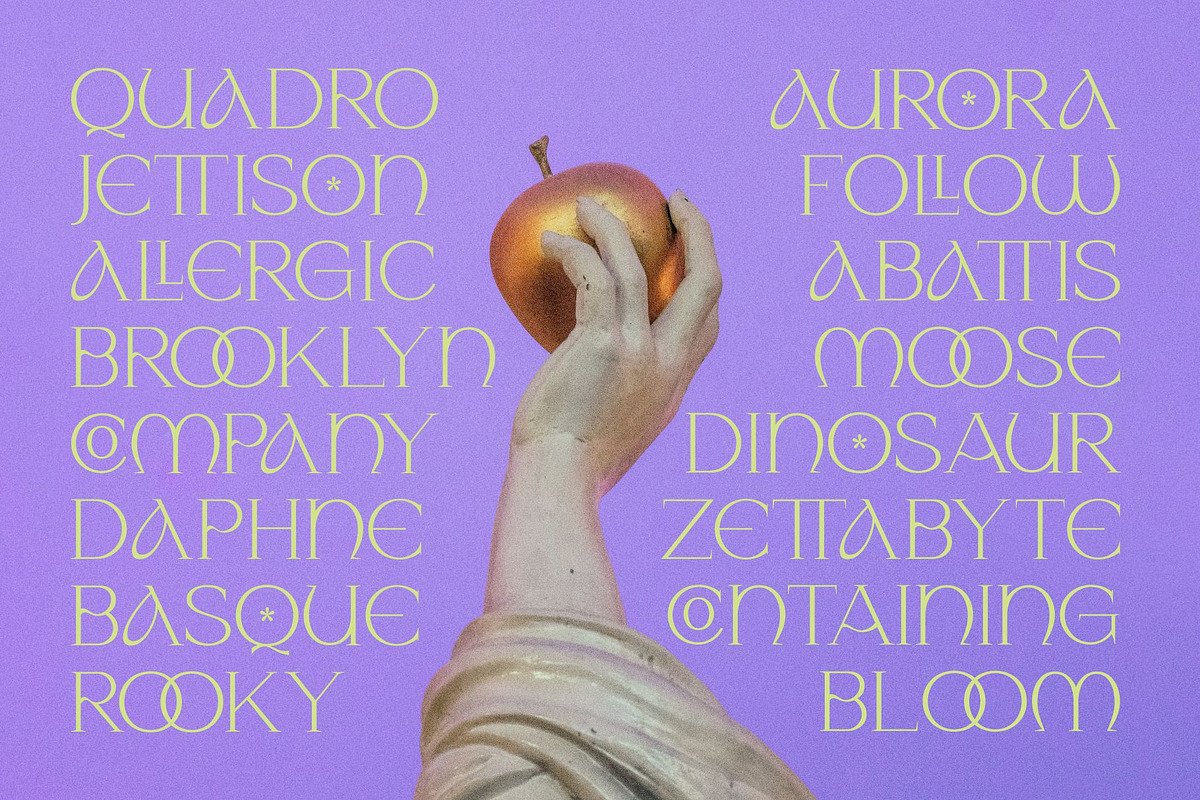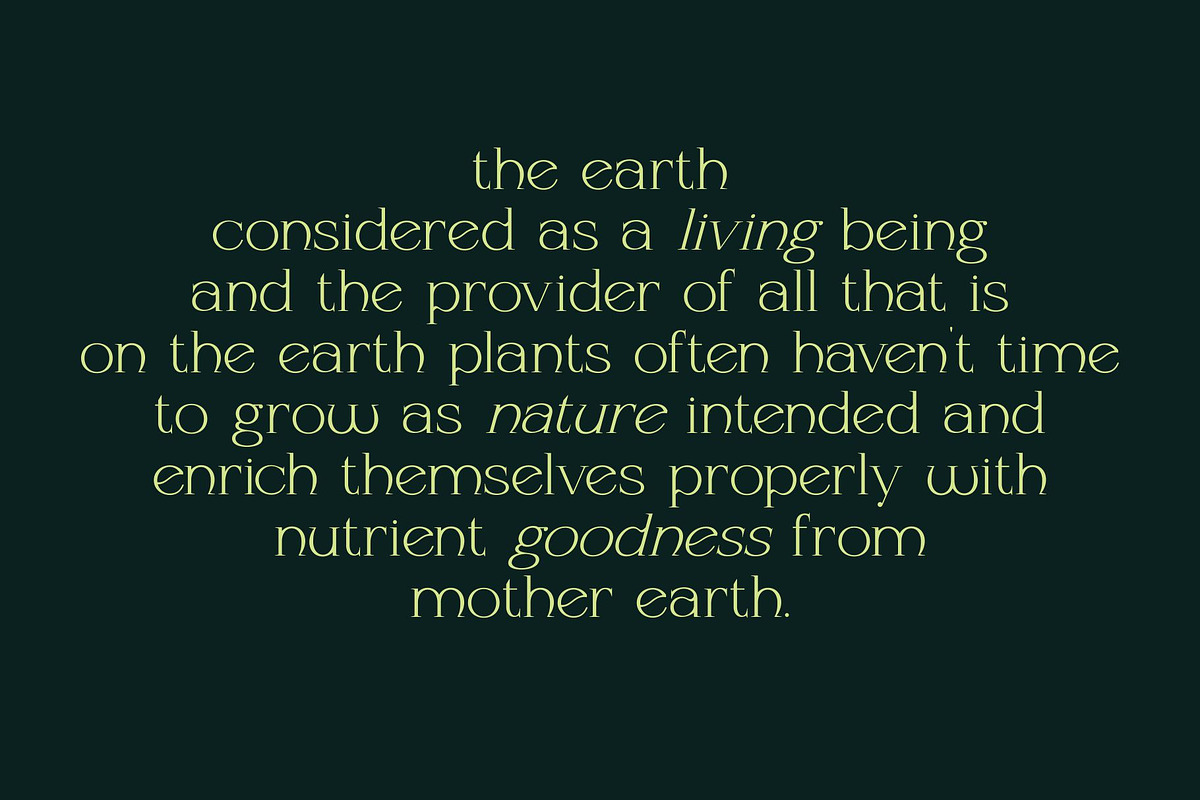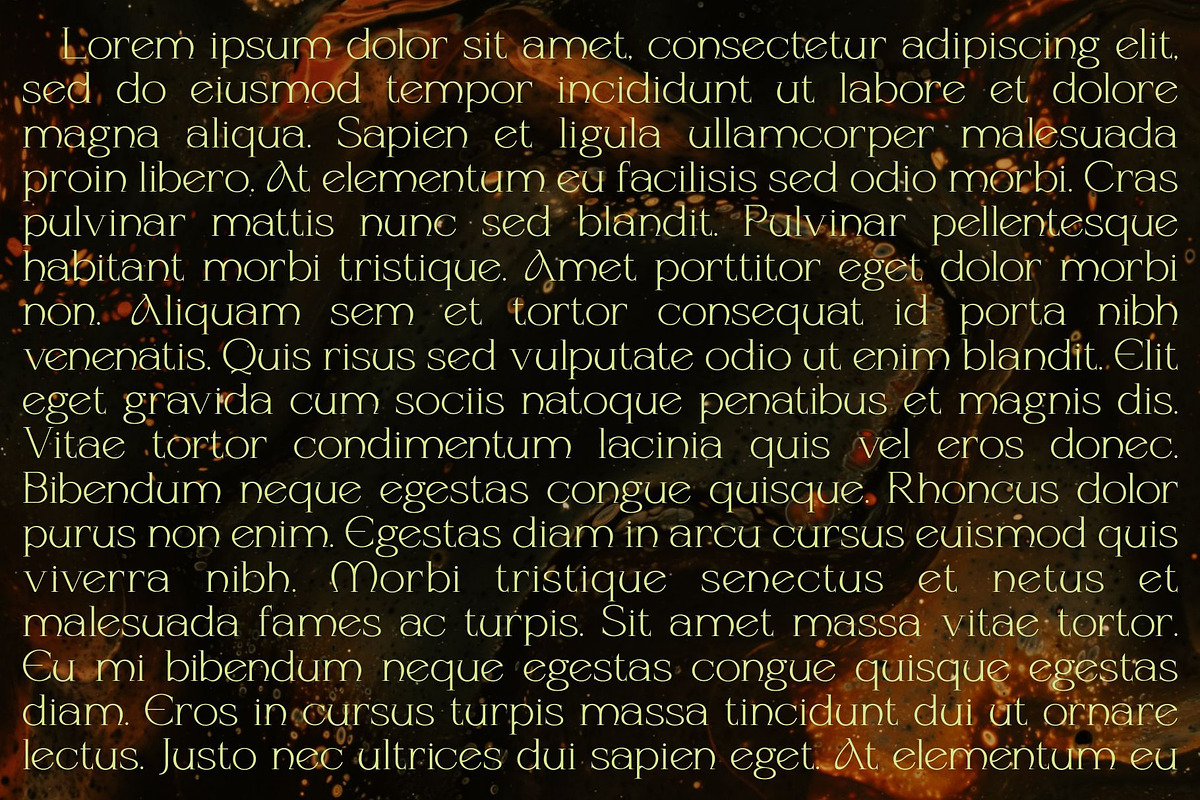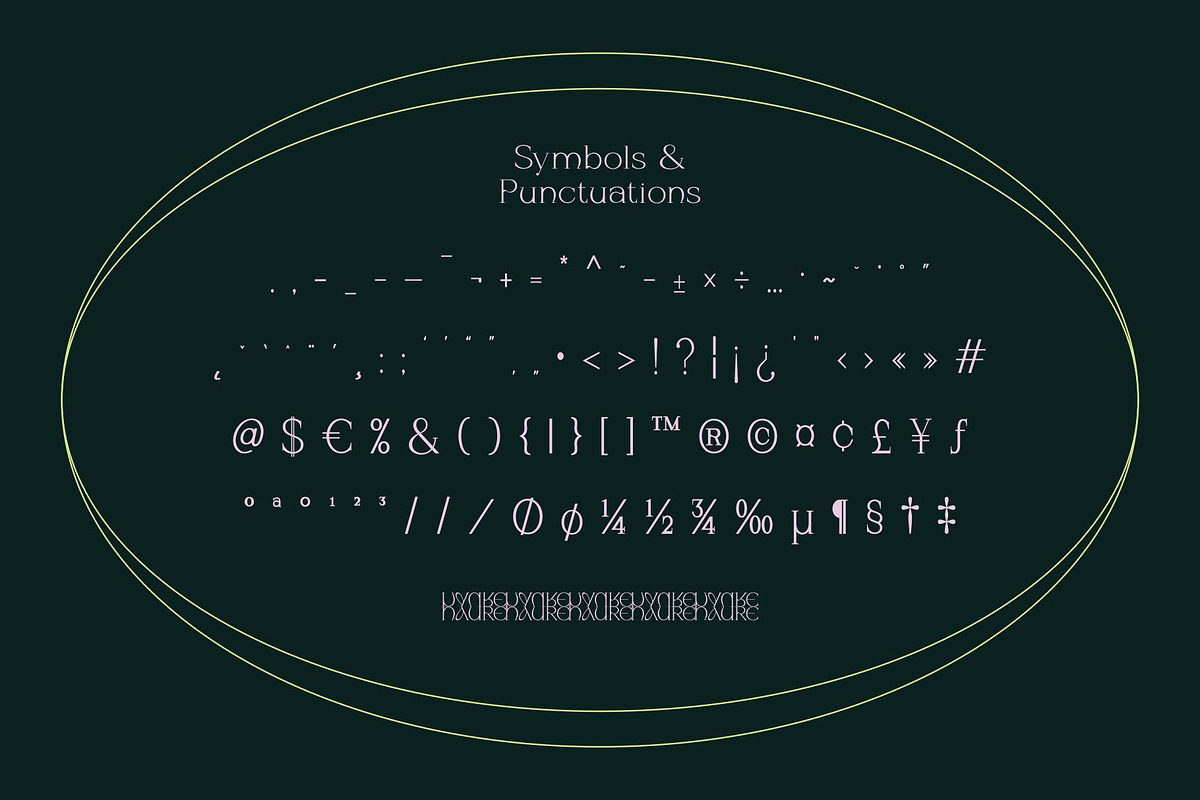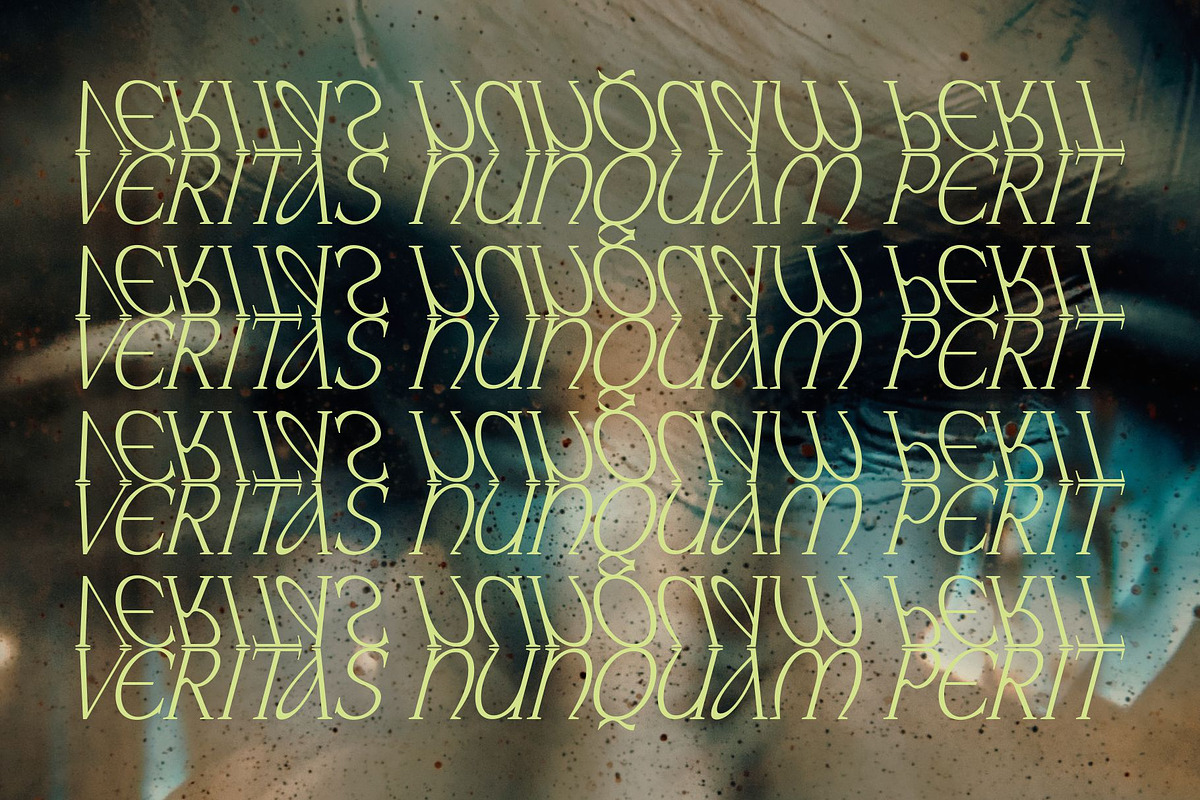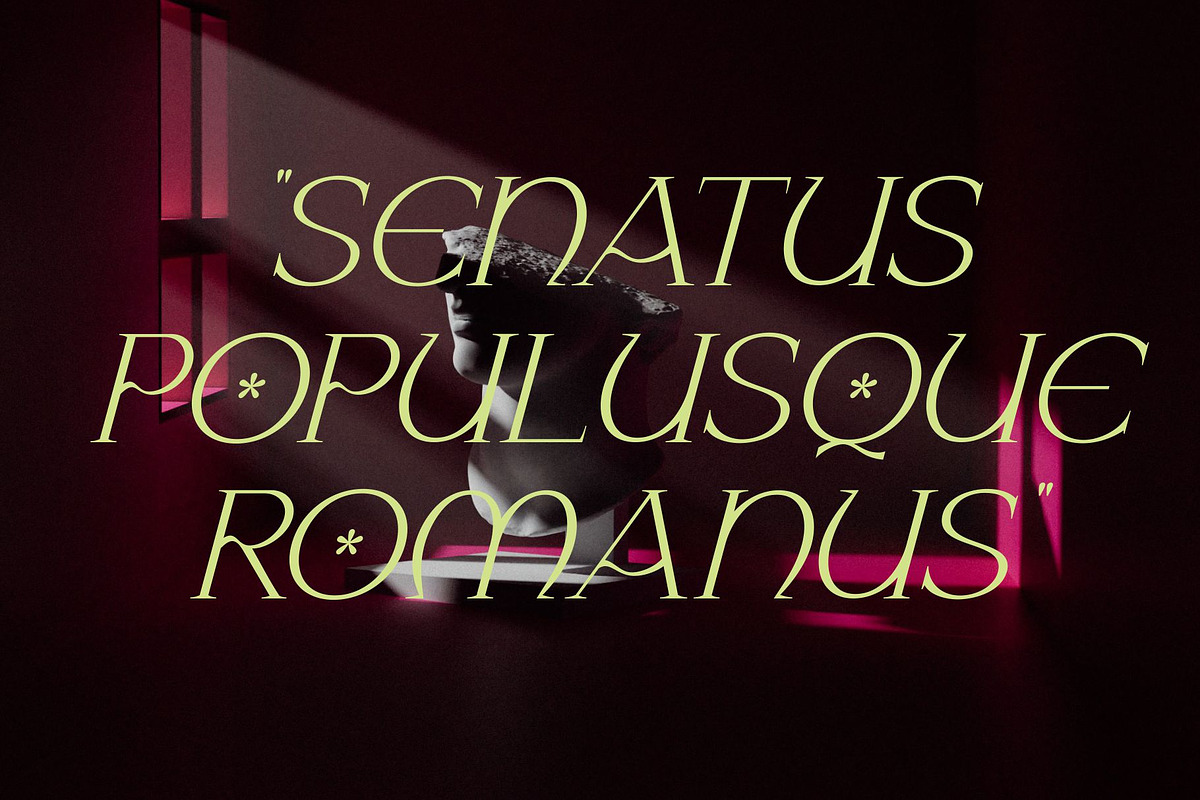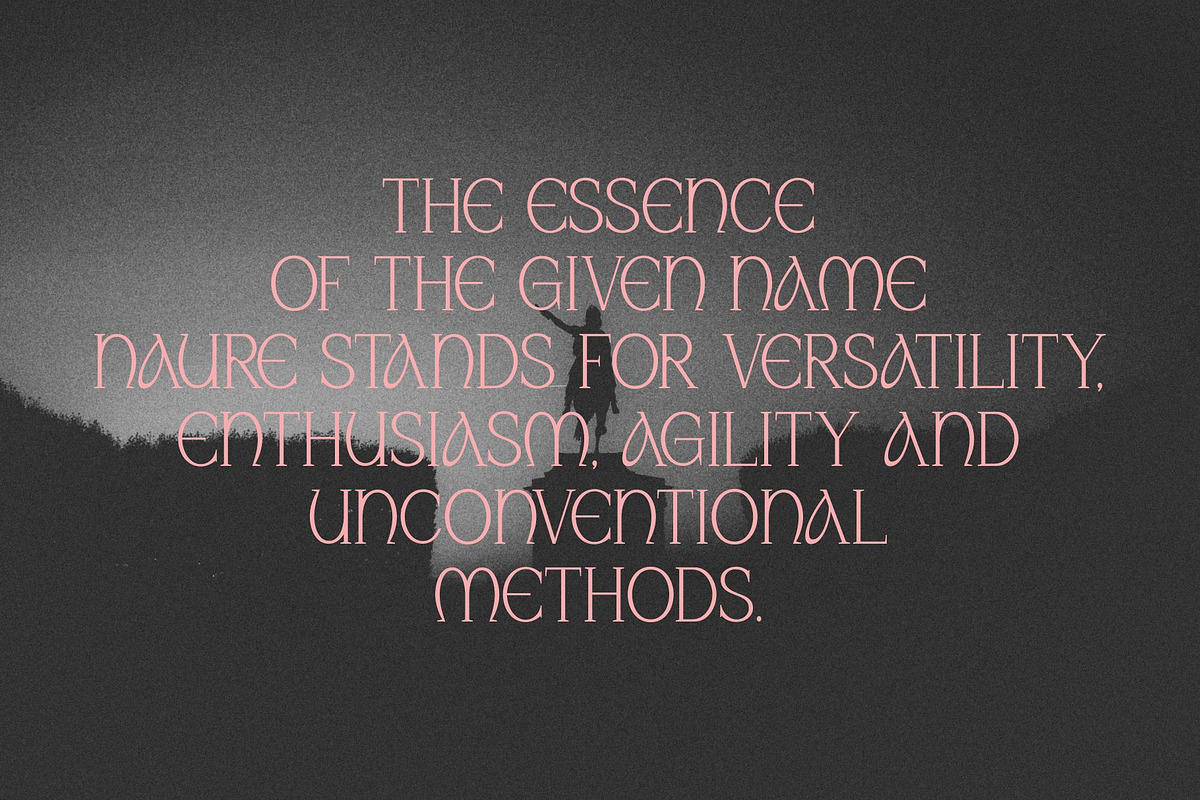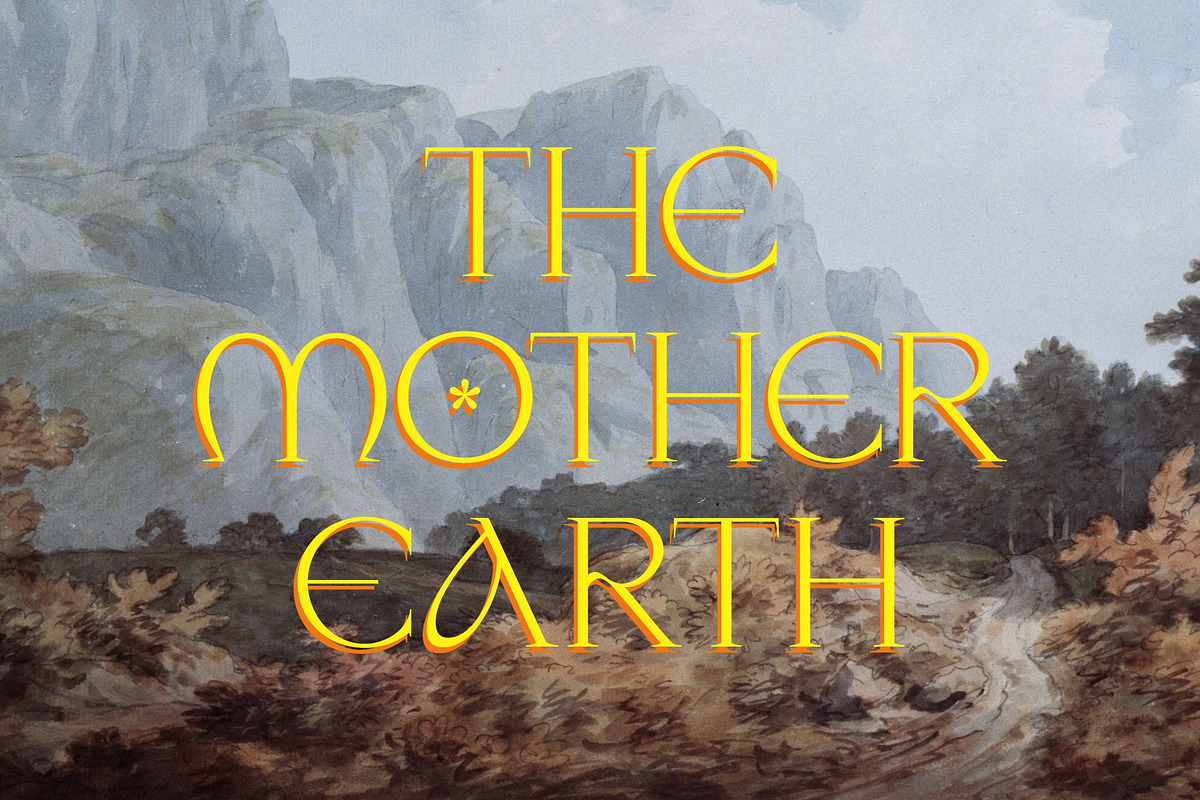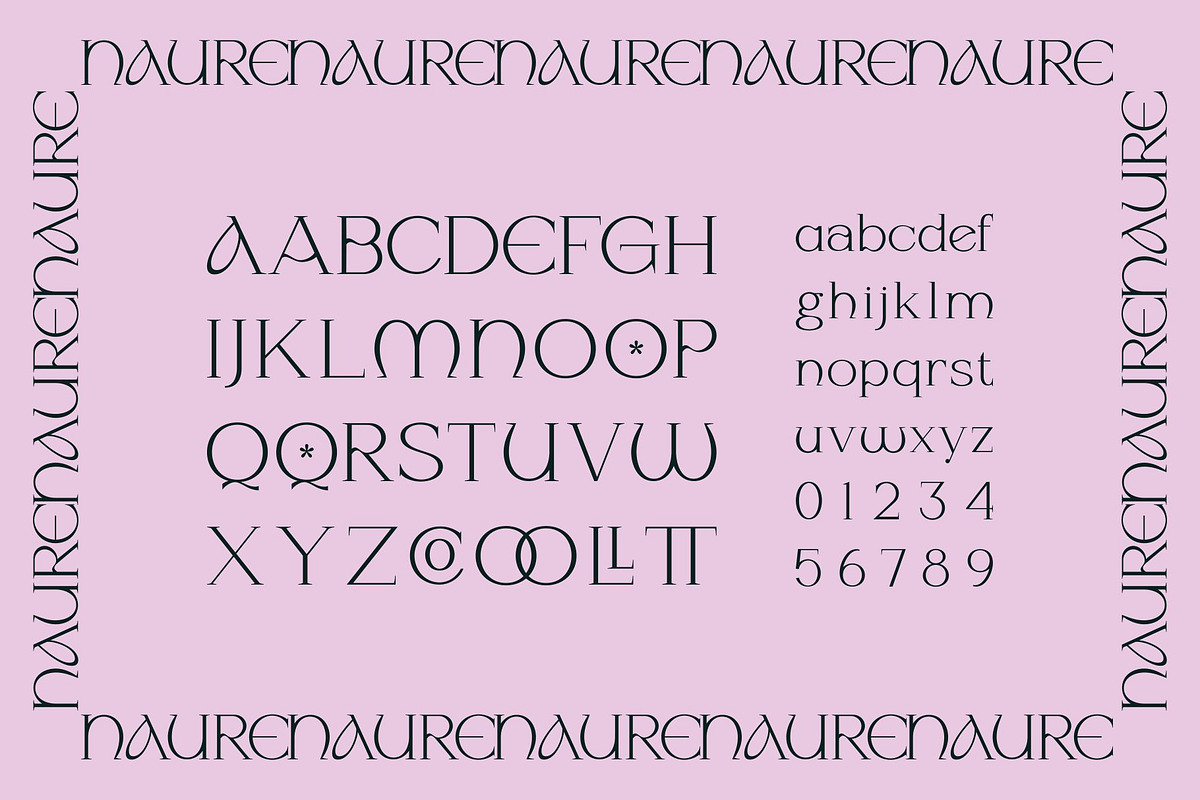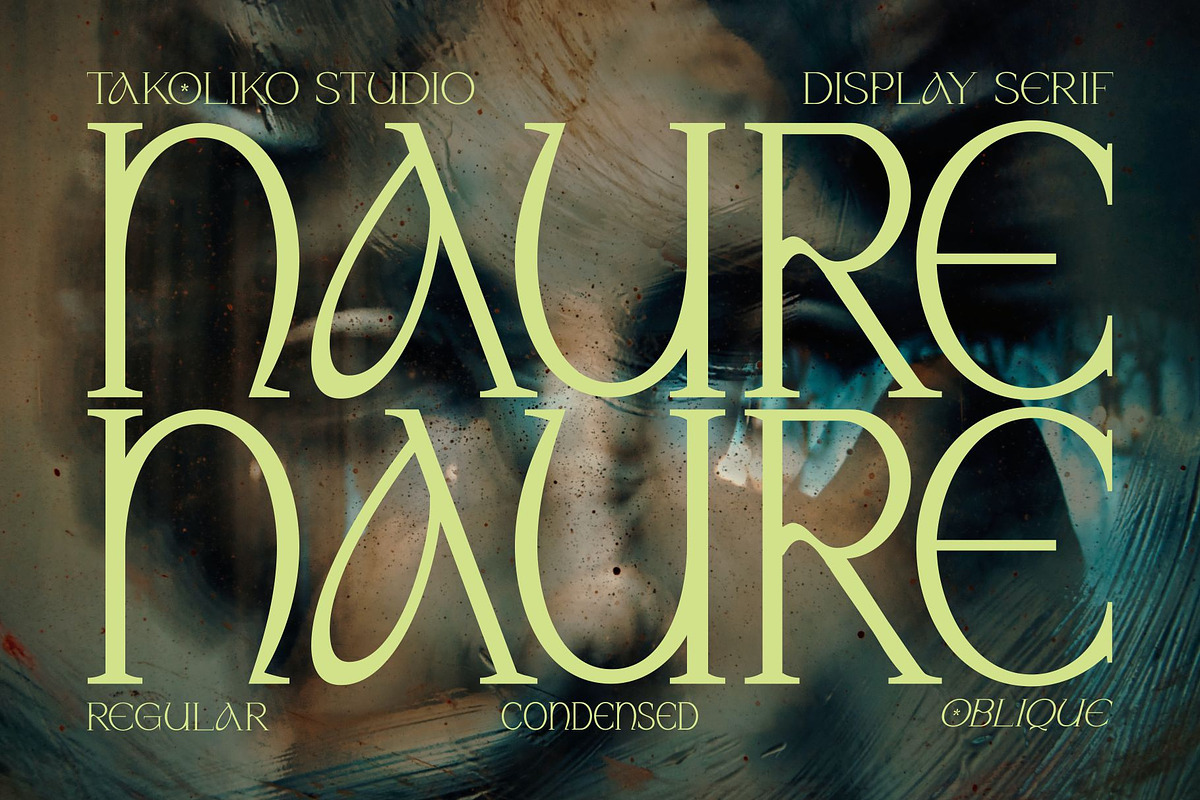
Naure - Serif Display
NAURE is a vintage classy serif typeface, with a little roman soul on it. It comes with regular, condensed, and oblique style. It have a curve that give a unique yet elegant feel at the same time. The strong characteristic makes it suitable for attention grabbing design projects such as headlines, posters, social media displays, editorials, book cover, invitation, etc.